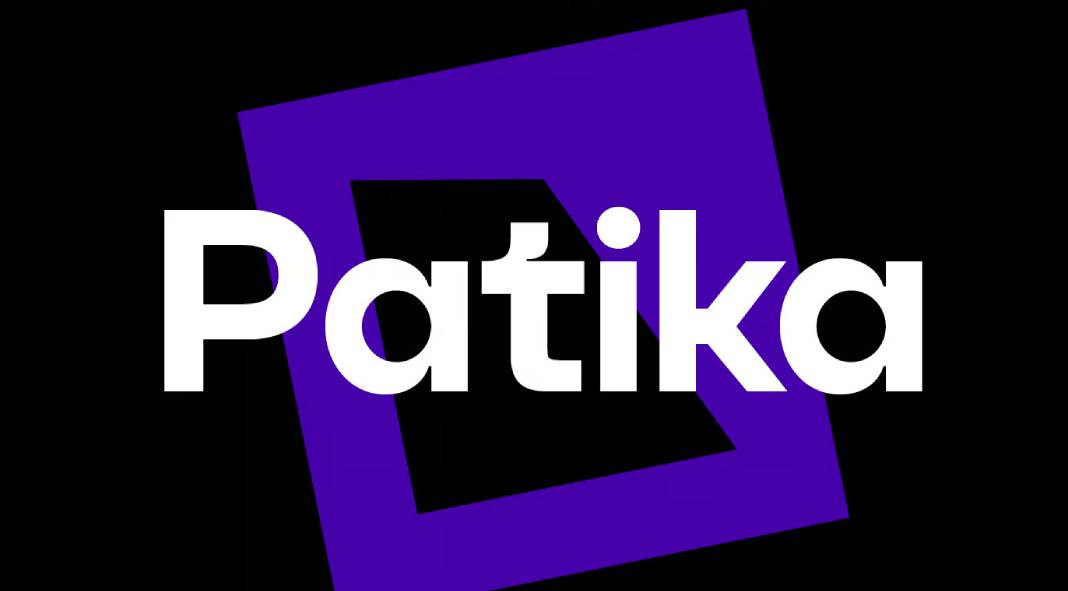
The Patika typeface, a contemporary neo-grotesque font family, stands as a testament to the seamless fusion of modern aesthetics and functional legibility. Drawing inspiration from the timeless elegance of iconic typefaces such as Helvetica, Futura, and Avant Garde, Patika reimagines the neo-grotesque genre with a fresh and captivating perspective, all thanks to the creative genius of its designer, Sahap Kurtaran, of Plasebo Studio.
At its core, Patika boasts a striking synthesis of clean lines, well-balanced proportions, and subtle intricacies. The design reflects meticulous attention to detail and artful craftsmanship that elevates it beyond mere utility. While paying homage to its classic predecessors, Patika establishes its distinct identity by seamlessly weaving together elements that evoke a sense of modernity while upholding the fundamentals of legibility.
One of Patika’s most remarkable achievements lies in its meticulous refinement of letter forms, particularly evident in its lowercase characters. This precision results in a harmonious equilibrium between width and height, culminating in enhanced legibility across a diverse array of sizes and applications. Whether gracing the pages of print publications or commanding digital interfaces, Patika’s adaptability shines through.
The versatility of Patika is a paramount feature that extends its appeal to a wide spectrum of typographic requisites. From capturing attention-grabbing headlines to eloquently presenting lengthy passages of text, this typeface accommodates a spectrum of typographic scenarios with an effortless grace that few fonts can match.
Underpinning its elegant exterior, Patika comes equipped with a robust set of OpenType features. These include a treasure trove of alternative glyphs, fractions, arrows, and ligatures, among other elements, which empower designers with a plethora of tools to enrich their typographic compositions. This amalgamation of features extends beyond mere embellishment, enabling designers to infuse their designs with a touch of distinctiveness that resonates with their creative vision.
In conclusion, the Patika typeface is a masterful creation that marries contemporary aesthetics with the practical demands of legibility. The vision of Sahap Kurtaran and the craftsmanship of Plasebo Studio have resulted in a font family that pays homage to its forebears while venturing into the new and captivating territory. From its meticulously balanced proportions to its comprehensive OpenType features, Patika is a testament to the enduring evolution of typography, making it an indispensable asset in the toolkit of discerning designers.